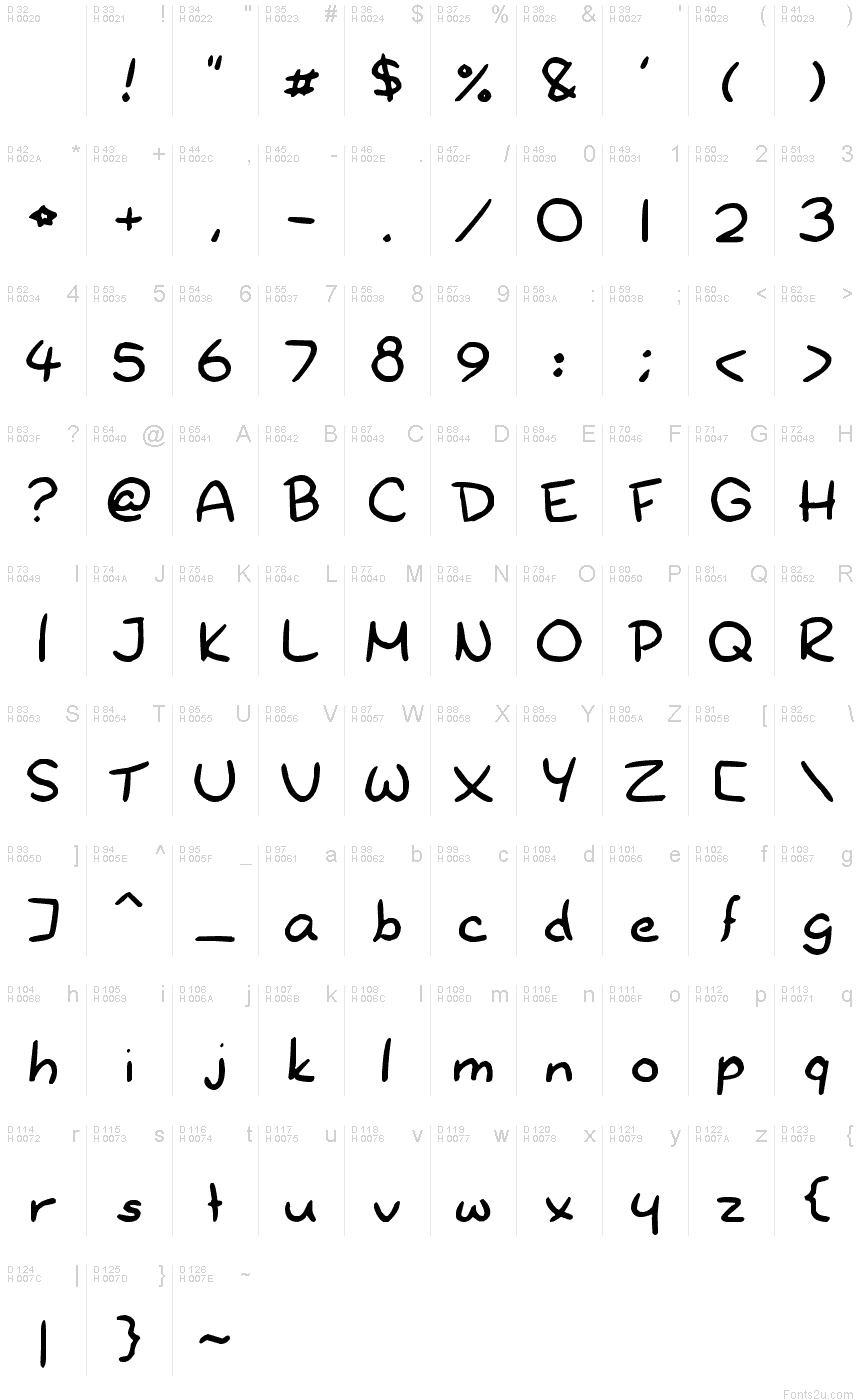
New Dr. Yoshiabibi
New Dr. Yoshiabibi font by Yoshirby is a free handwritten typeface that feels like it was written with a thick felt-tip marker—inky, rounded, and cheerfully uneven. The strokes stay bold and friendly, with a bouncy rhythm that keeps it readable while still looking human and spontaneous.
Using New Dr. Yoshiabibi works beautifully for comic captions, kids’ posters, classroom handouts, sticker designs, casual packaging, social headlines, zines, and playful YouTube thumbnails. Give it a little breathing room at larger sizes so the chunky shapes don’t crowd, and pair it with a clean sans for body text to keep the message crisp.